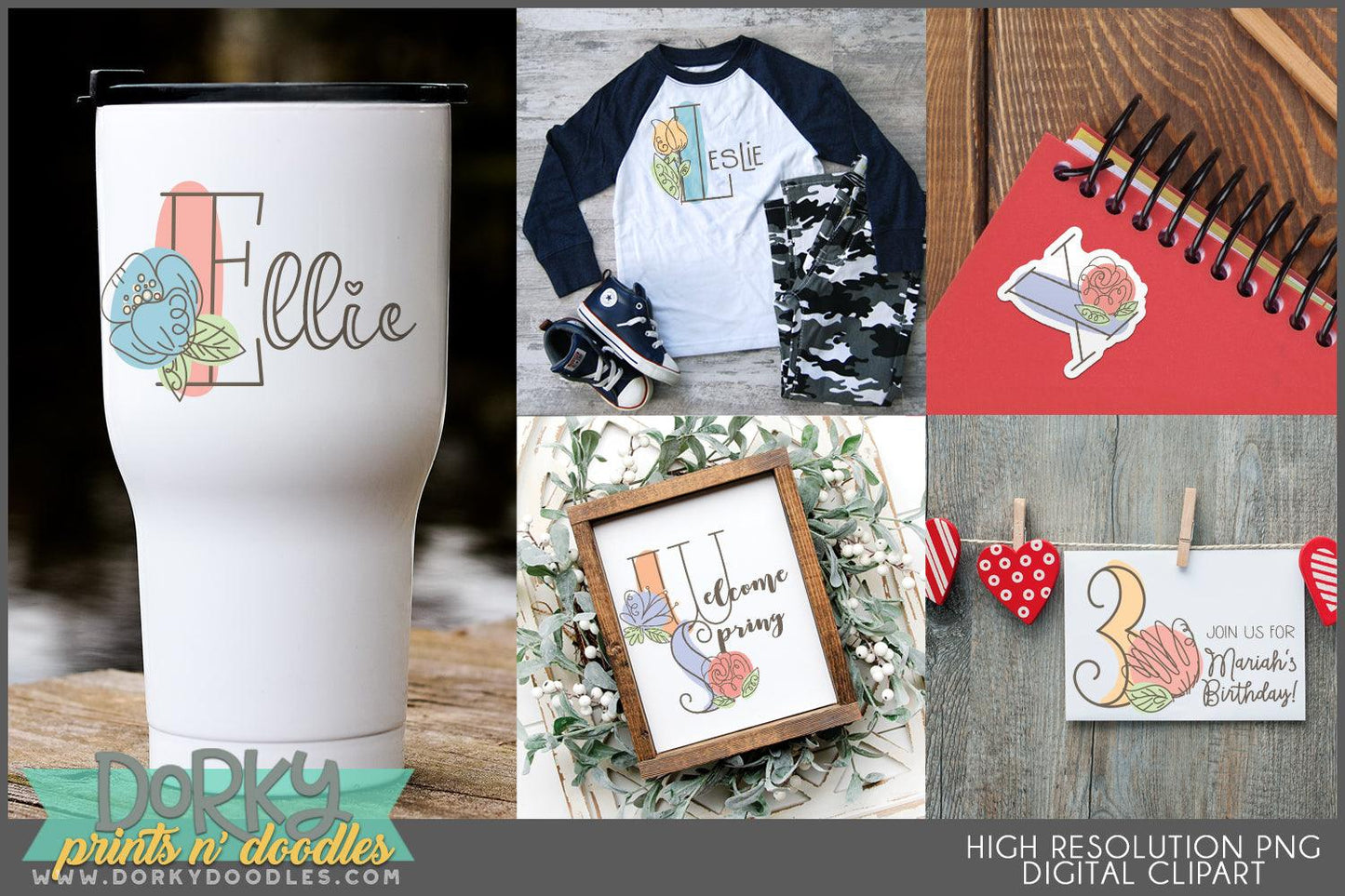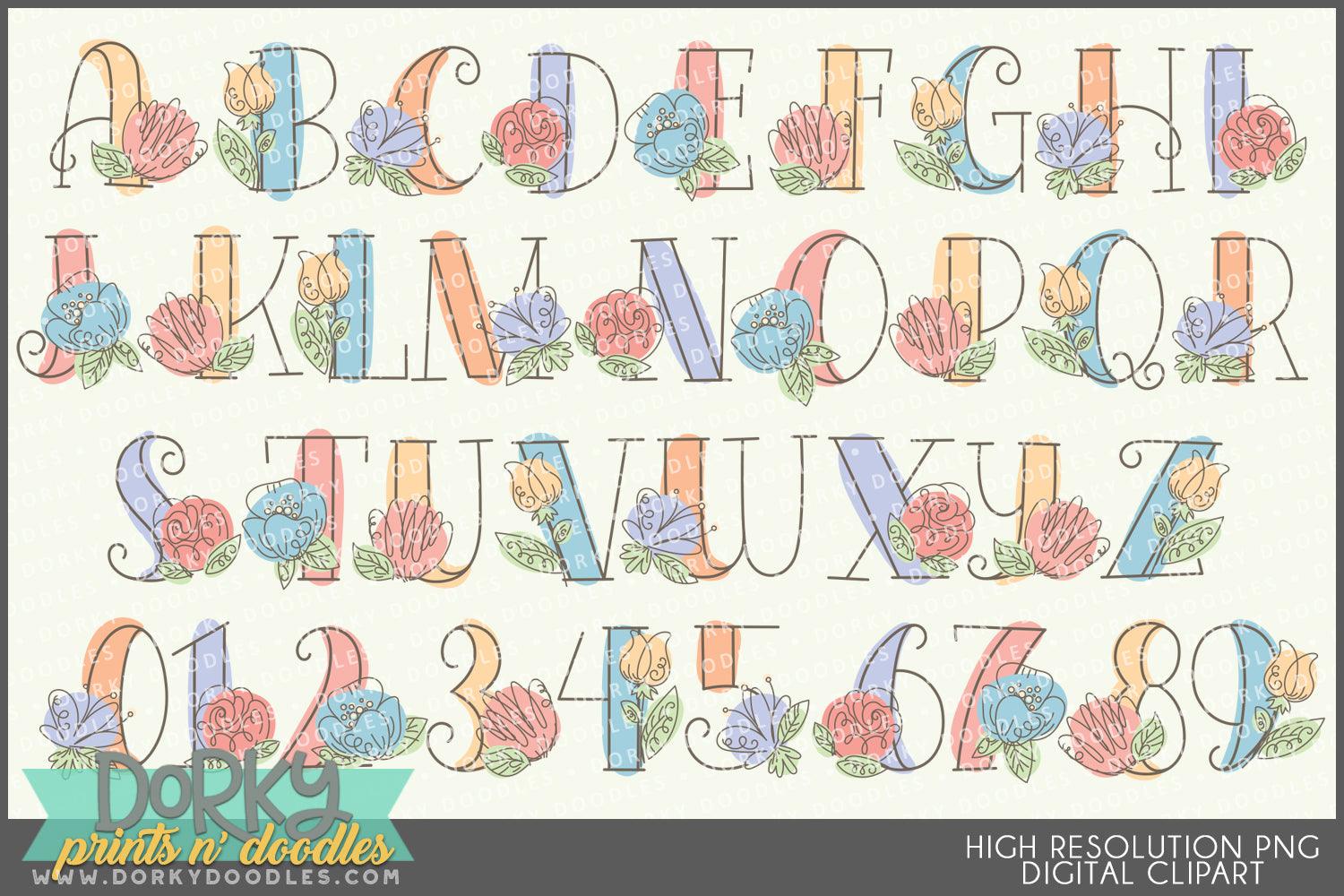
Sketchy Flower Alphabet Clipart
These cute sketchy style flower alphabet and number clipart images look fabulous on cards, in scrapbooks, party invitations, planner stickers, sublimation projects, and decor! You will get 36 Digital Clip Art images in high resolution PNG format (they come as a ZIP file that you can download instantly once payment has cleared).
• the full alphabet and numbers 0-9 using cute sketchy style flowers